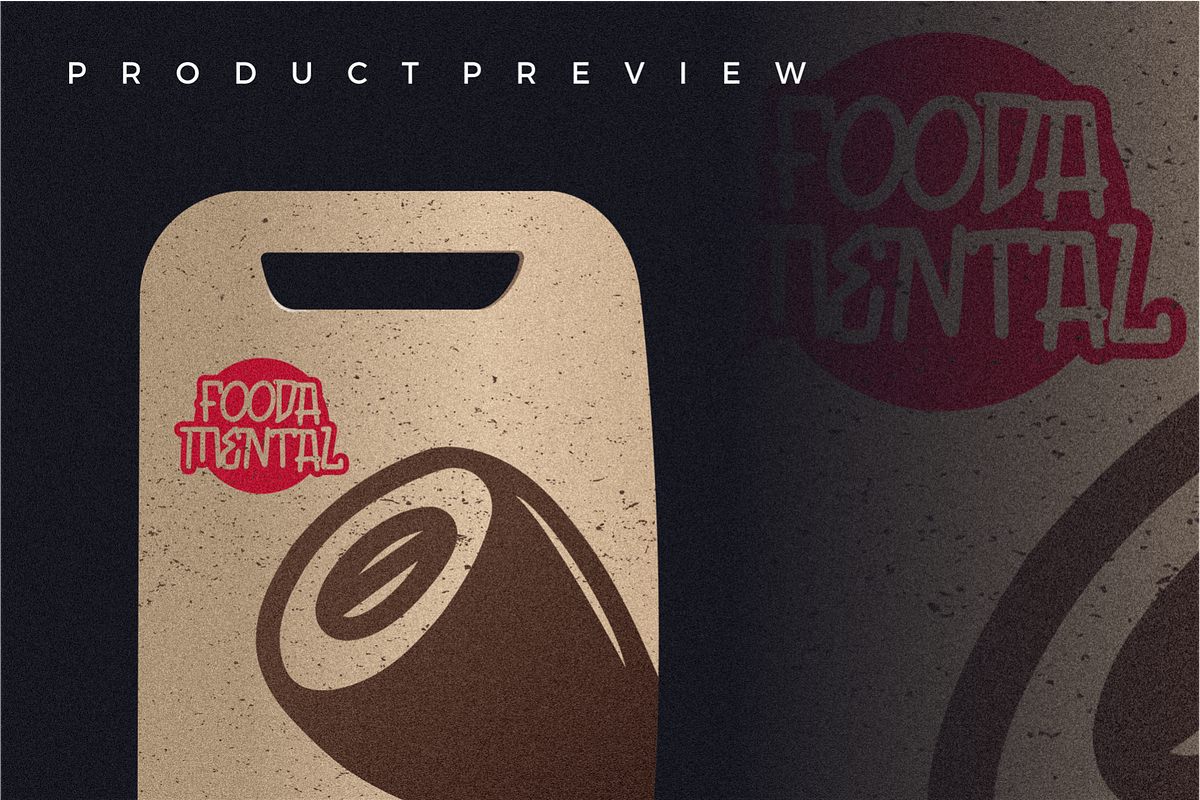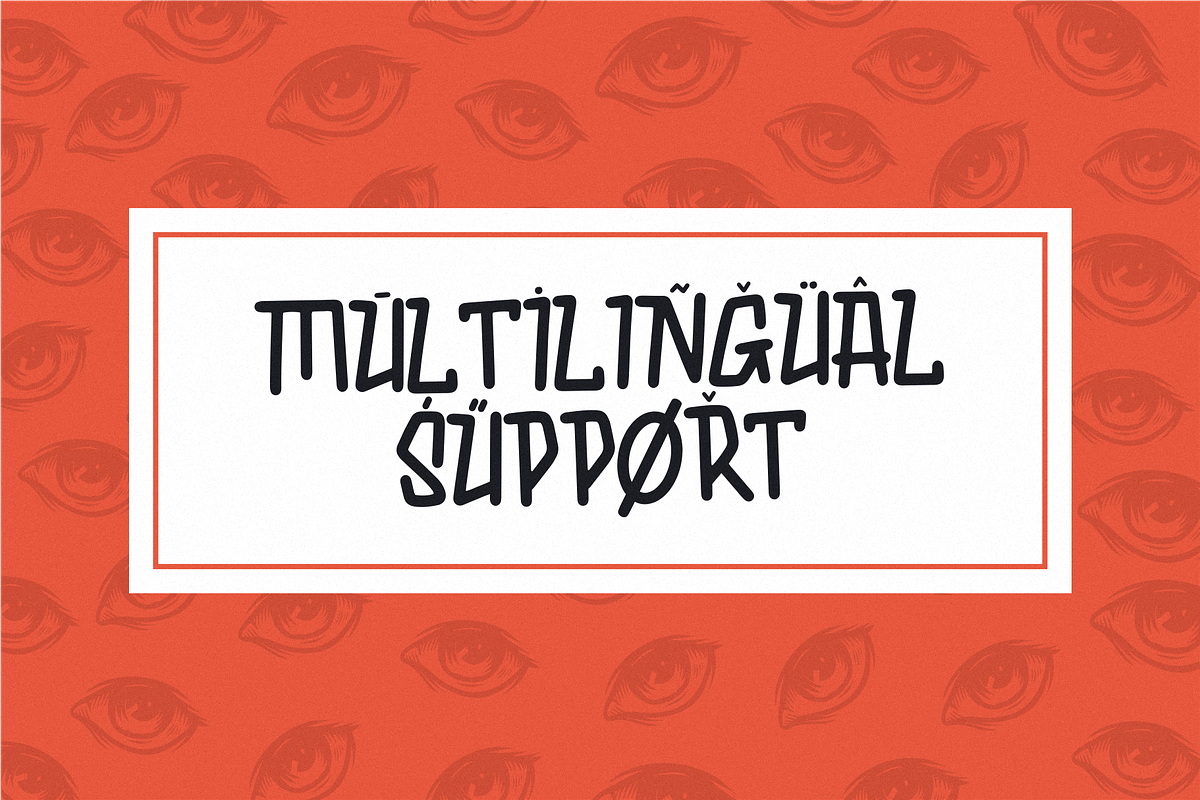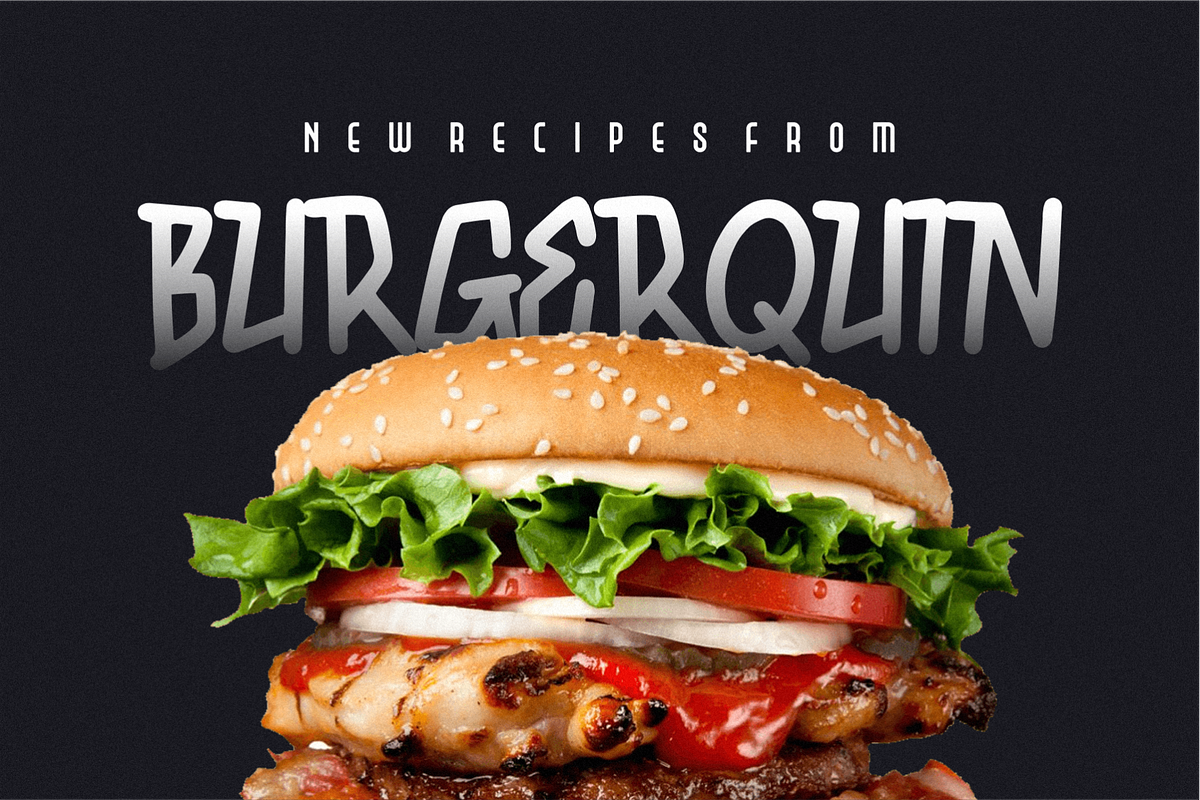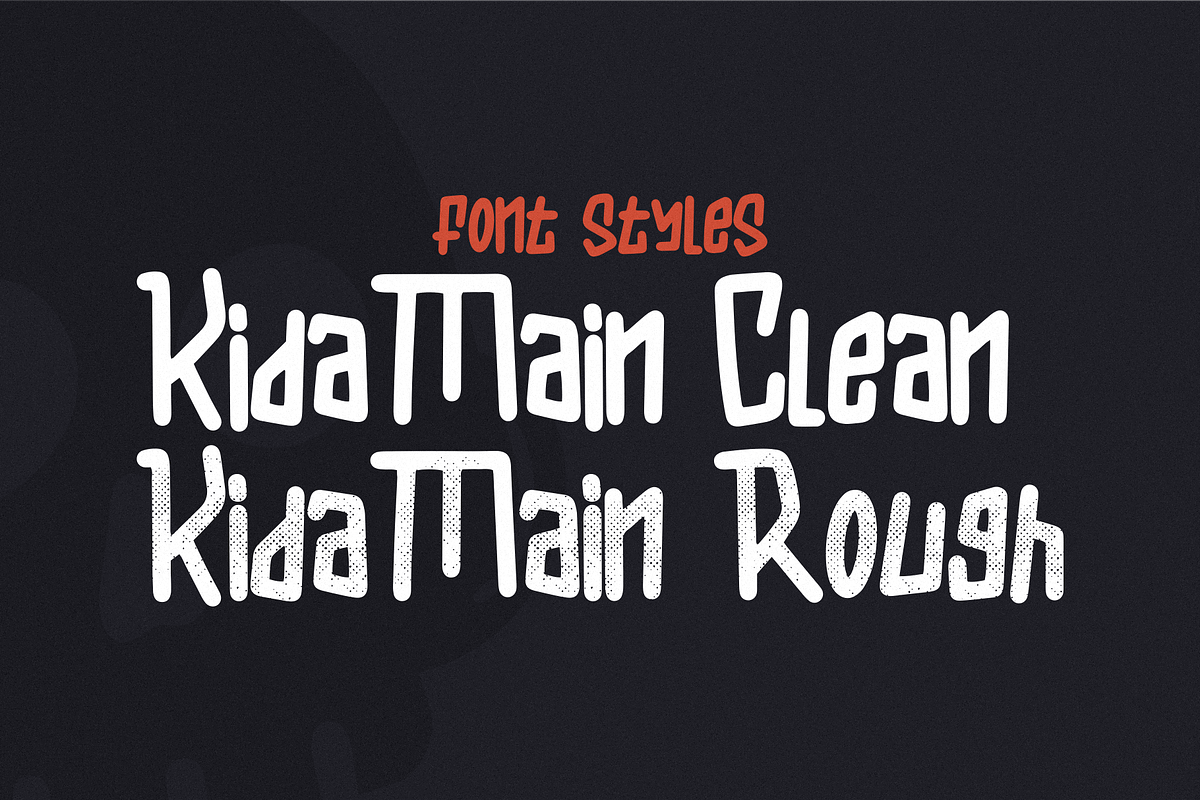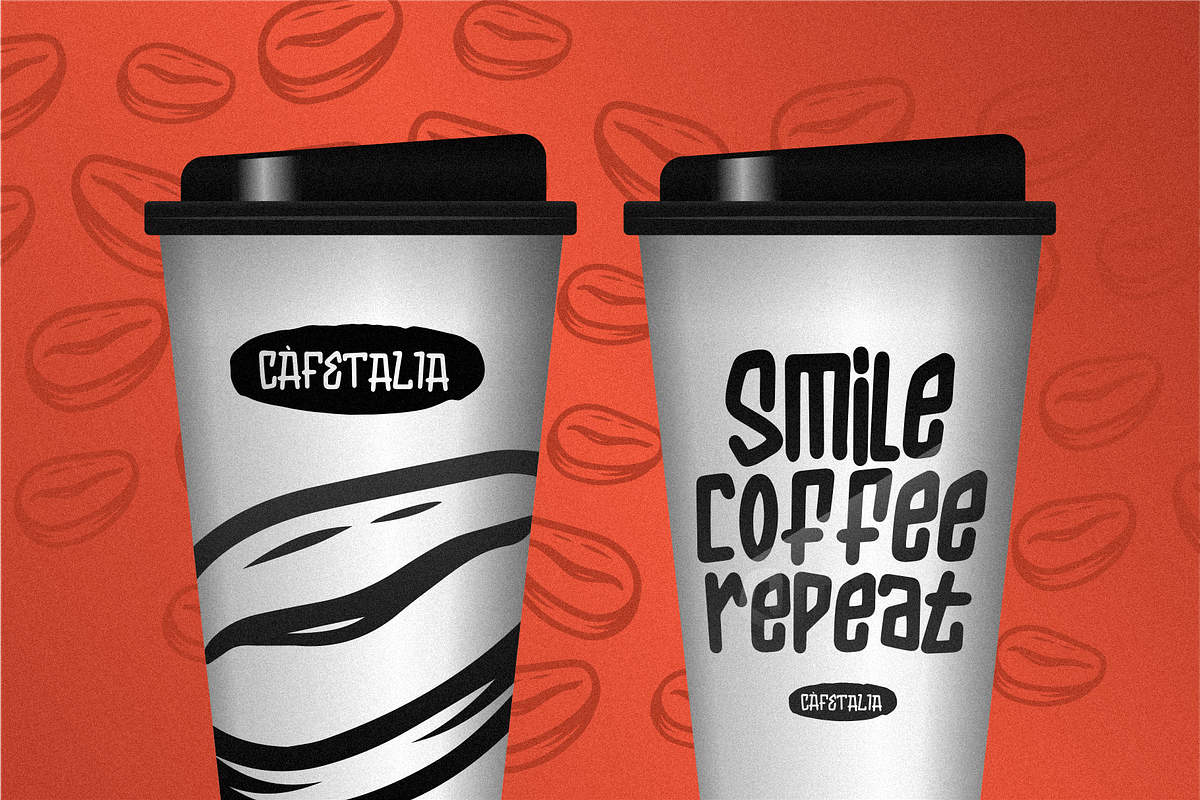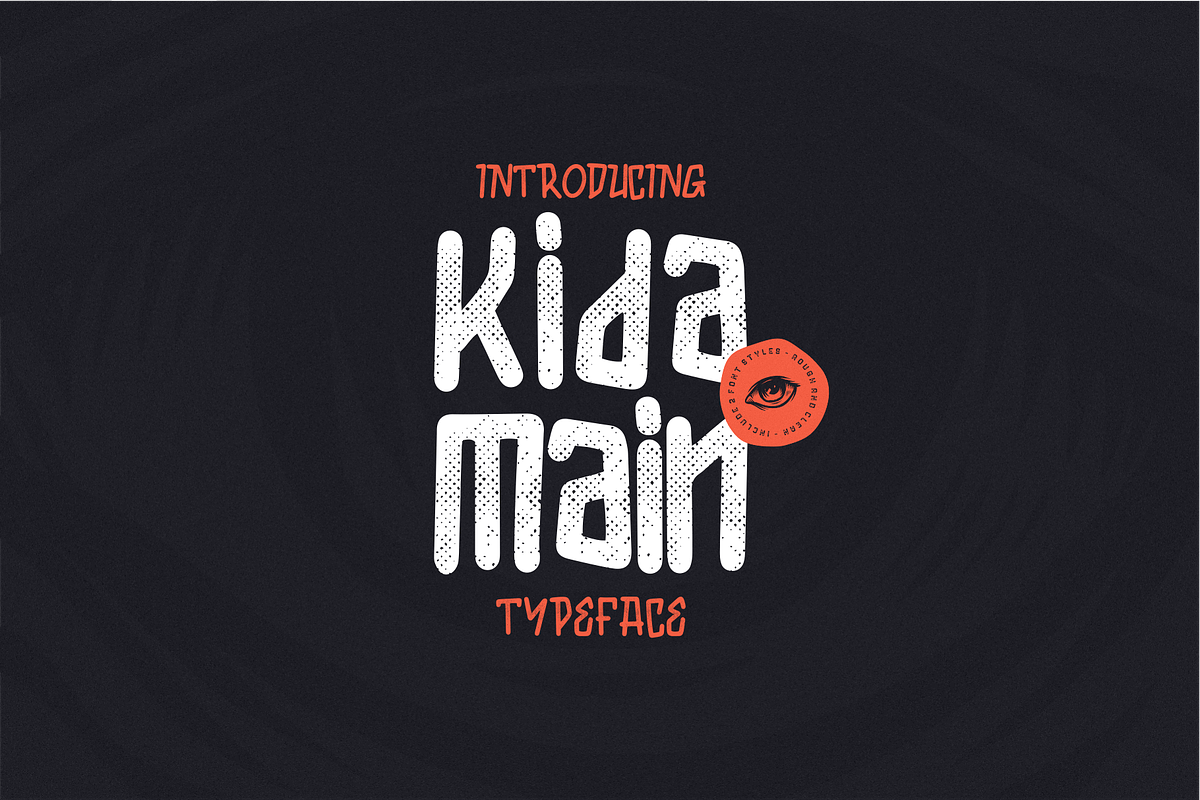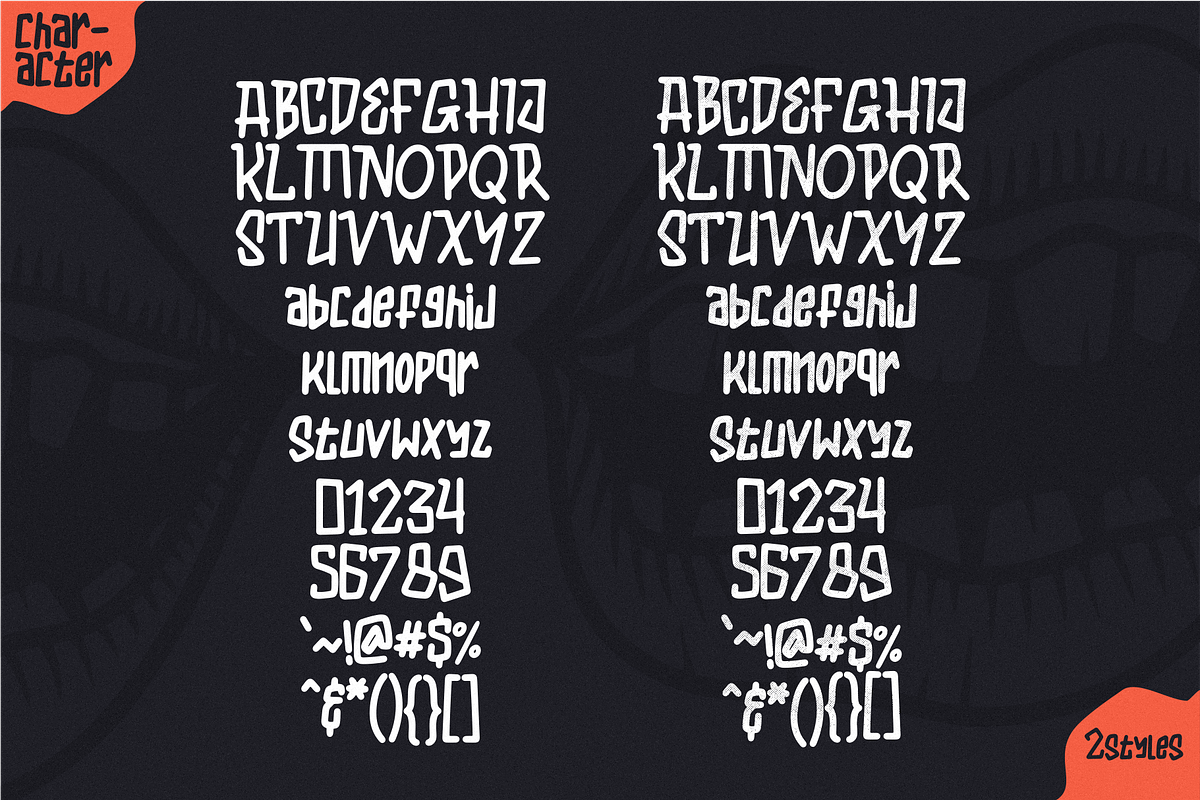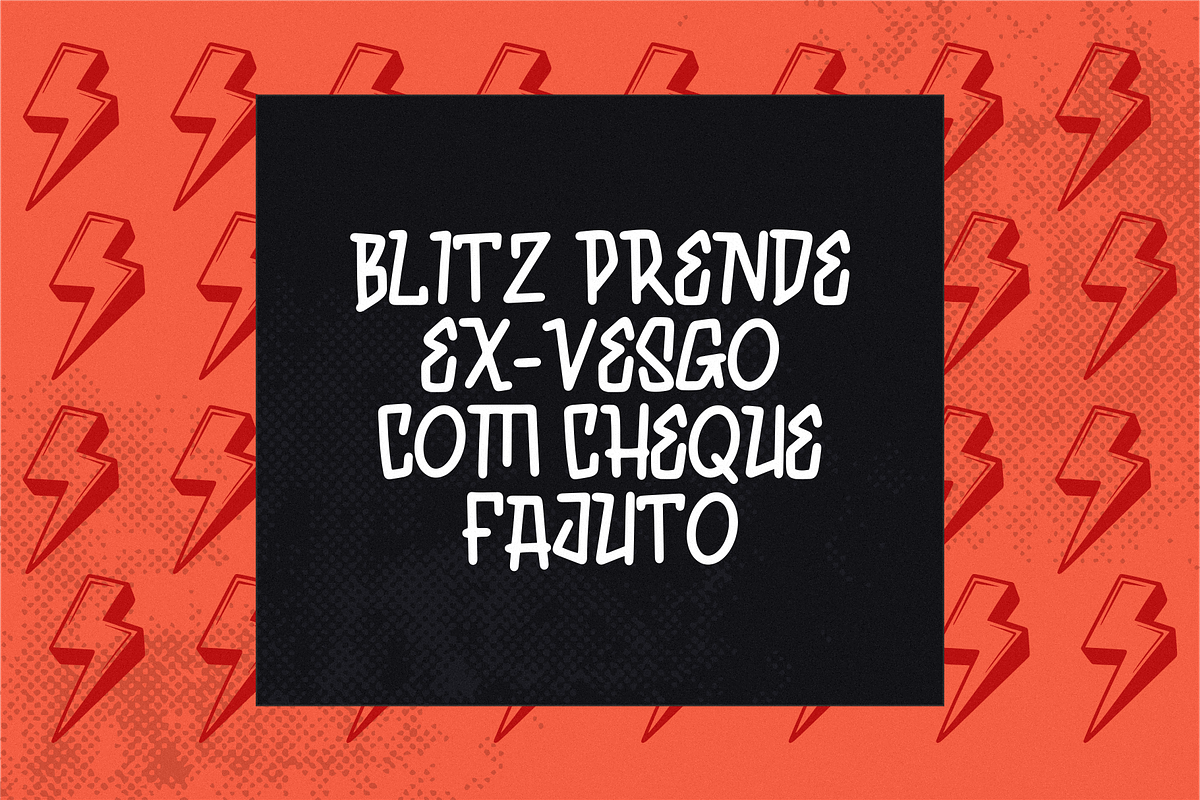
Kida Main Typeface
Kida Main font is display font with a child's handwriting style. This font is perfect for something related to food, children, kids illustrations, book titles, website title, writing on video, or anything you can try to gain experience in graphic design needs.
- Features:
- Number,
- Uppercase & Lowercase
- Punctuation.